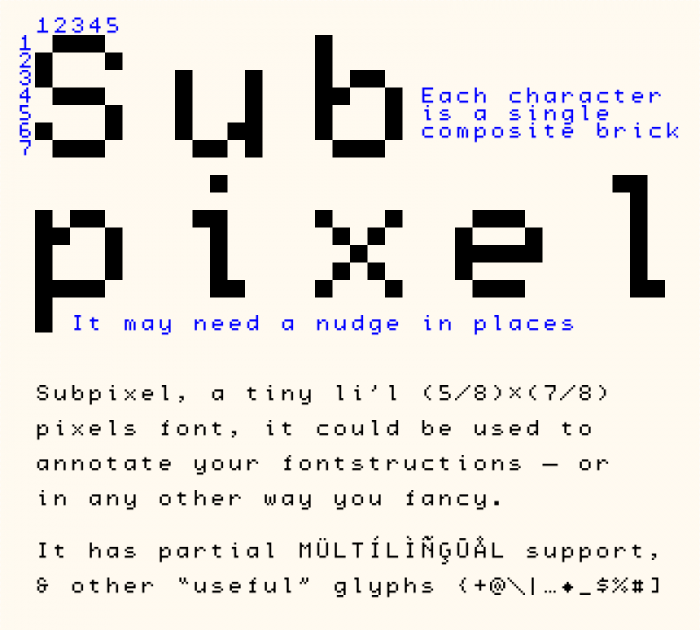
A ⅝×⅞ pixel typeface, an experiment mainly intended as a tool to annotate your fontstructions while building. And, of course, I couldn’t resist the punny name ;-)
Almost all of it is comprised in the Google Fonts Basic set.
Each glyph is a single composite brick (no stacking involved), almost all are constructed in a 5×7 grid inside the 8×8 grid given by using quarter-brick squares in a 4×4 grid.